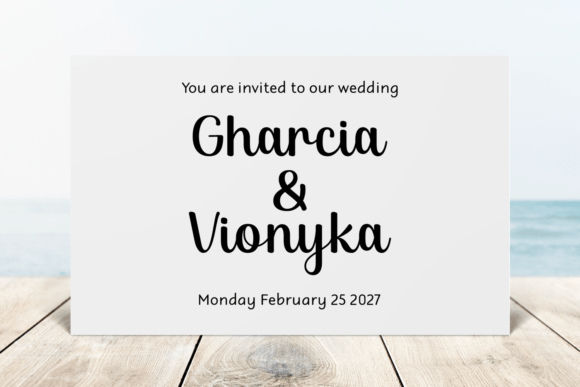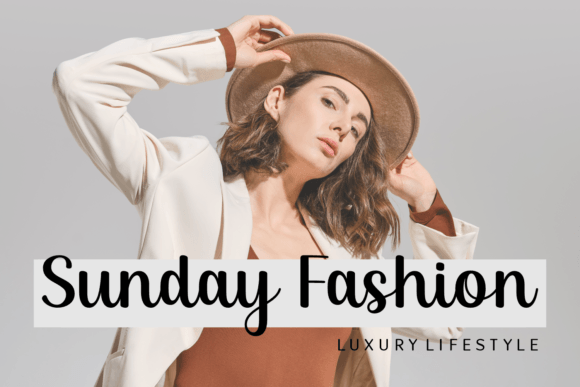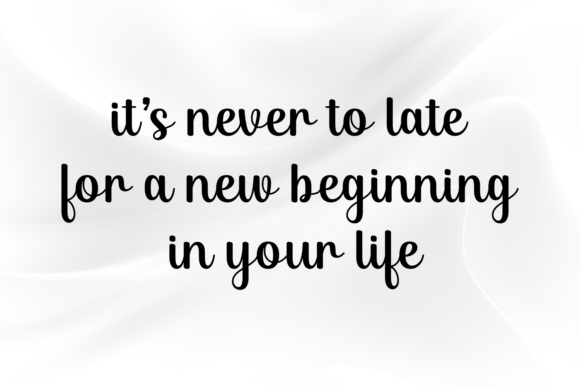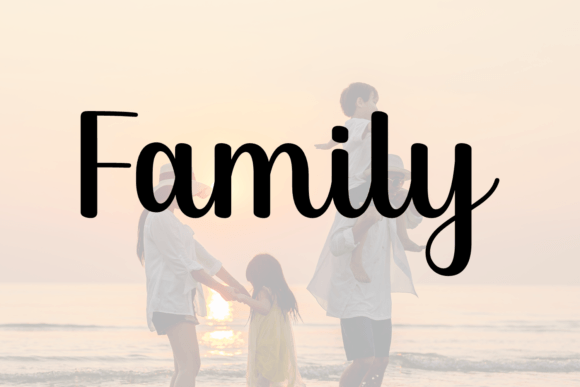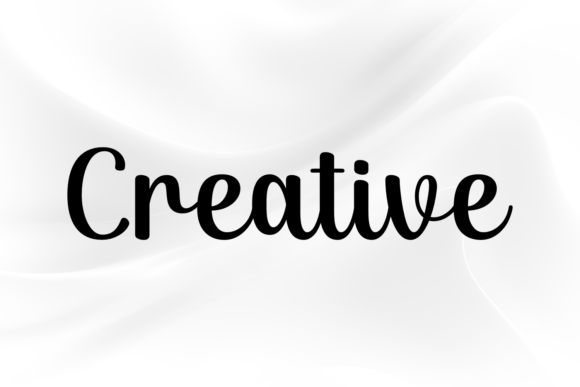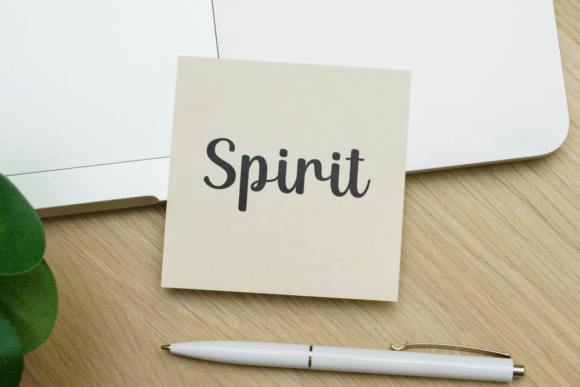
Beryera Font: Adding a Personal Touch to Your Designs
In the world of typography, fonts play a crucial role in conveying the tone and personality of a design. For designers and crafters looking to add a touch of warmth and approachability to their projects, Beryera Font is an excellent choice. This friendly handwritten font is designed to bring a personal touch to your designs, making it perfect for a variety of uses.
The Characteristics of Beryera Font
Beryera Font is a handwritten font that boasts playful strokes and a casual vibe. Its handcrafted charm is evident in its imperfect lines and curves, giving it a unique and organic feel. The font’s simplicity and elegance make it versatile and easy to read, making it suitable for a range of applications, from digital designs to print materials.
The Benefits of Using Beryera Font
So, why choose Beryera Font for your designs? Here are just a few benefits:
- Personal touch: Beryera Font adds a personal touch to your designs, making them more relatable and engaging.
- Versatility: The font’s simplicity and elegance make it suitable for a range of applications, from digital designs to print materials.
- Easy to read: Beryera Font is easy to read, making it perfect for body text and captions.
- Unique charm: The font’s handcrafted charm gives it a unique and distinctive feel that sets it apart from other fonts.
Uses for Beryera Font
Beryera Font is a versatile font that can be used in a variety of contexts. Here are some ideas:
- Digital designs: Use Beryera Font in digital designs, such as social media graphics, blog posts, and website headers.
- Print materials: The font is perfect for print materials, such as brochures, flyers, and business cards.
- Crafting projects: Beryera Font is a great choice for crafting projects, such as handmade cards, scrapbooking, and journaling.
- Branding: Use the font as a brand font to add a personal touch to your brand’s identity.
Tips for Using Beryera Font
Here are some tips for getting the most out of Beryera Font:
- Pair with other fonts: Pair Beryera Font with other fonts to create a unique and interesting contrast.
- Experiment with colors: Try out different colors to find the perfect match for your design.
- Use it sparingly: Use Beryera Font sparingly to add emphasis and create visual interest.
- Make it bold: Use the font’s bold weight to create a statement piece.
Beryera Font is a friendly handwritten font that brings a personal touch to your designs. With its playful strokes and casual vibe, it adds a warm and approachable feel to any text. Perfect for a variety of uses, Beryera Font is a versatile font that effortlessly combines a handcrafted charm with simplicity. Whether you’re a designer or crafter, Beryera Font is an excellent choice for adding a touch of personality to your projects.